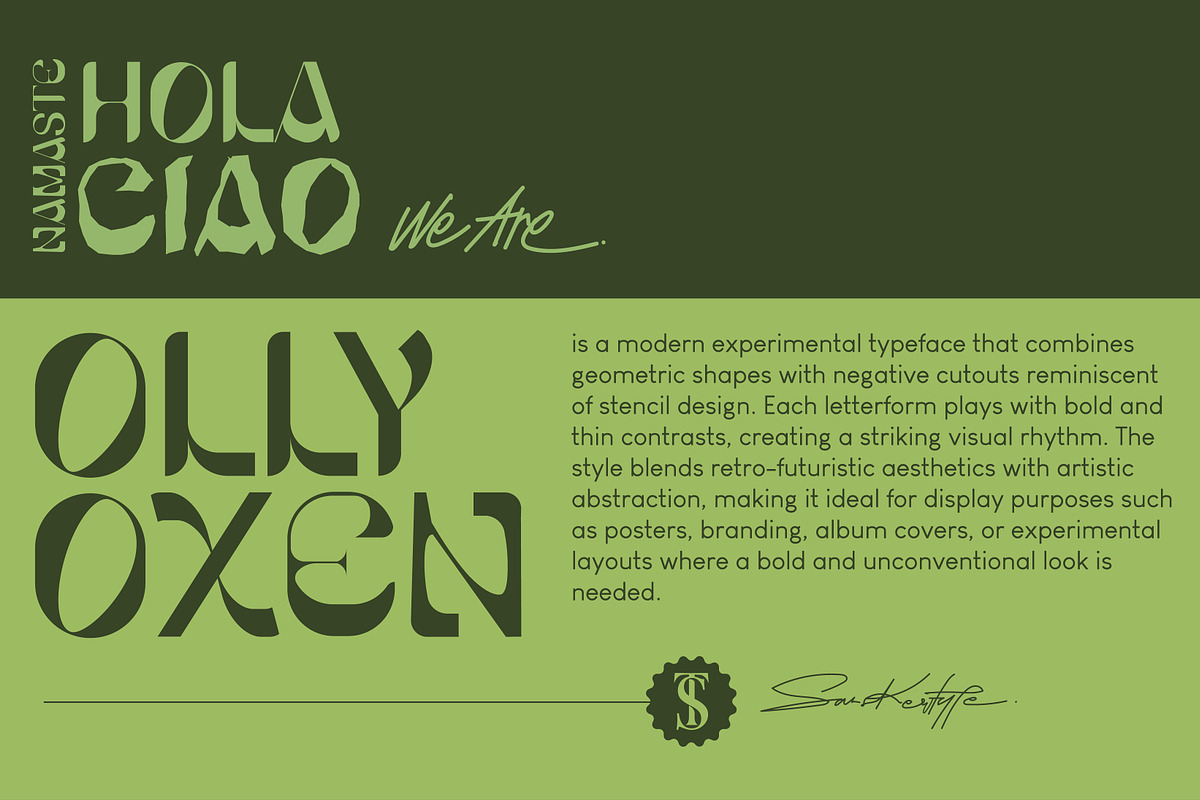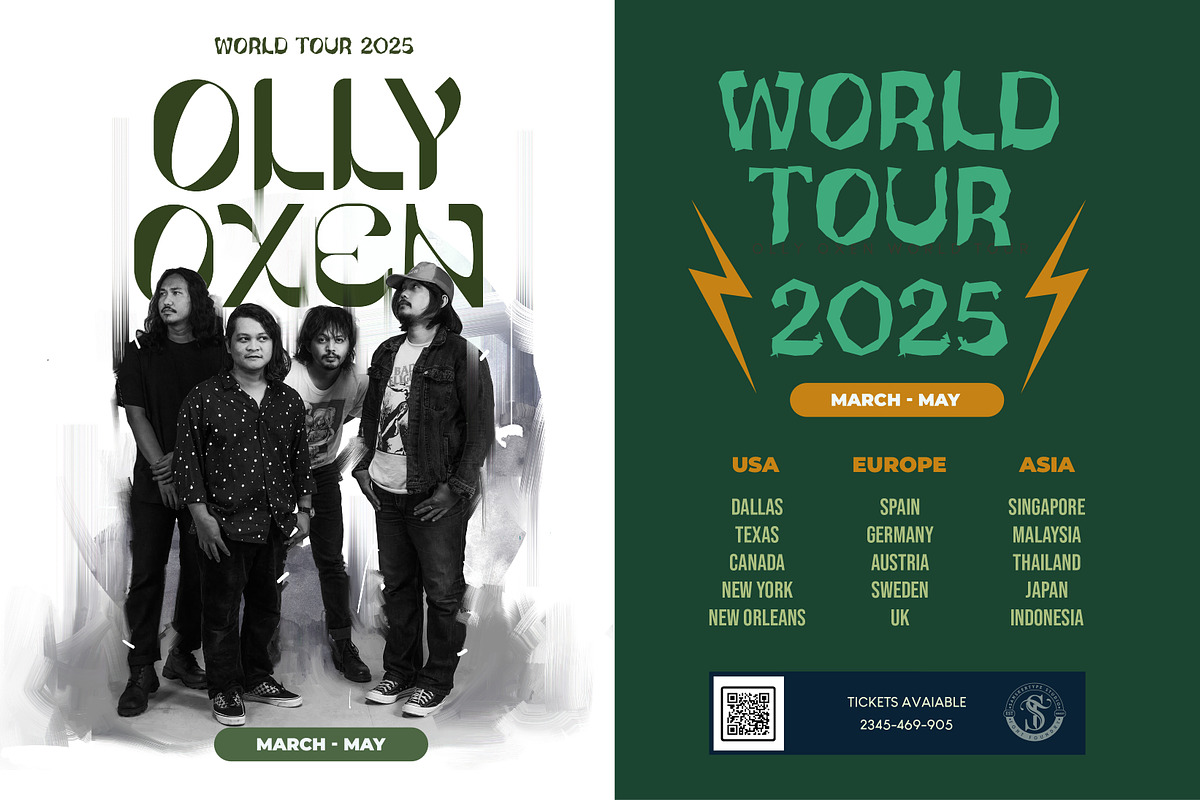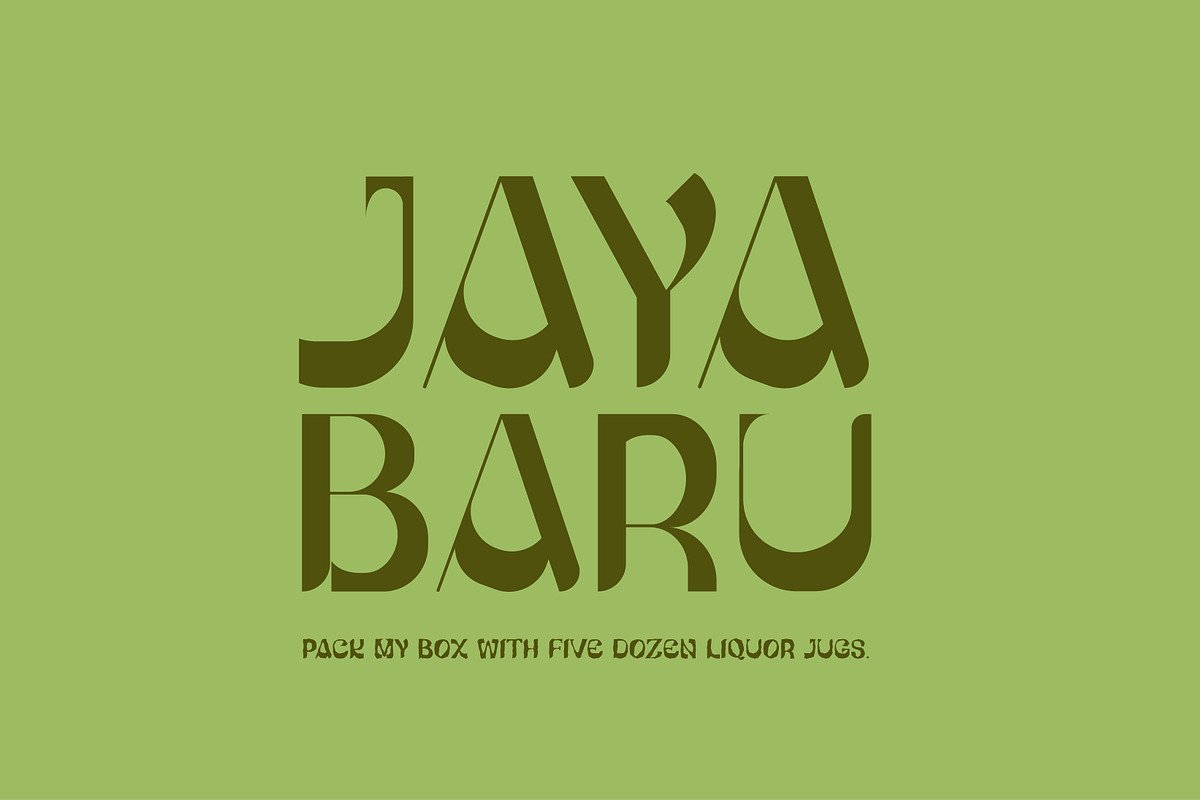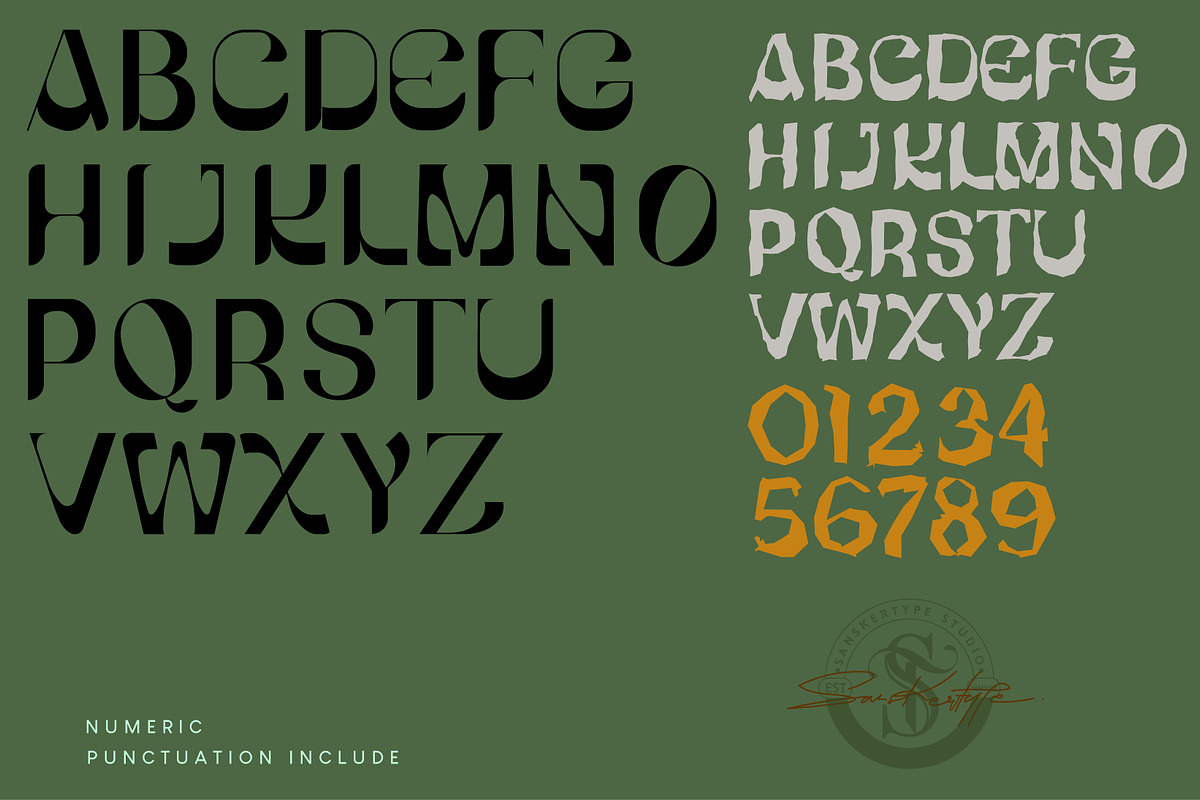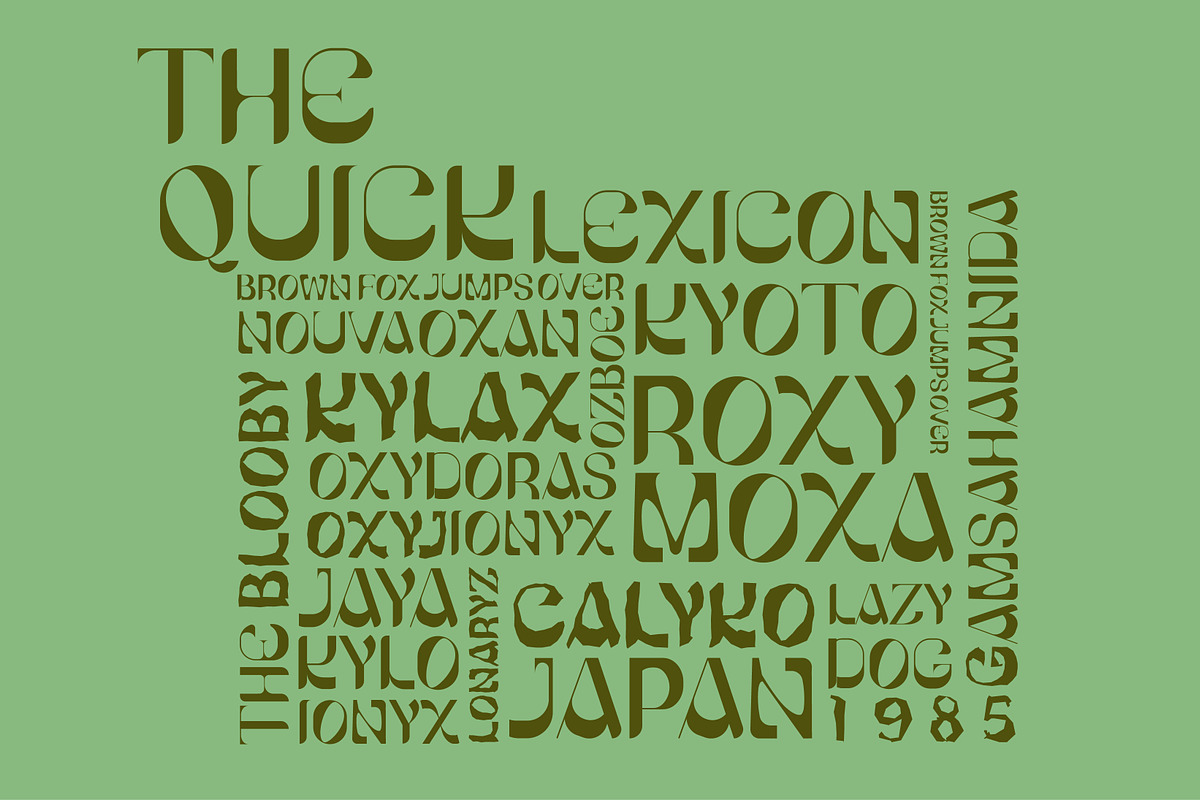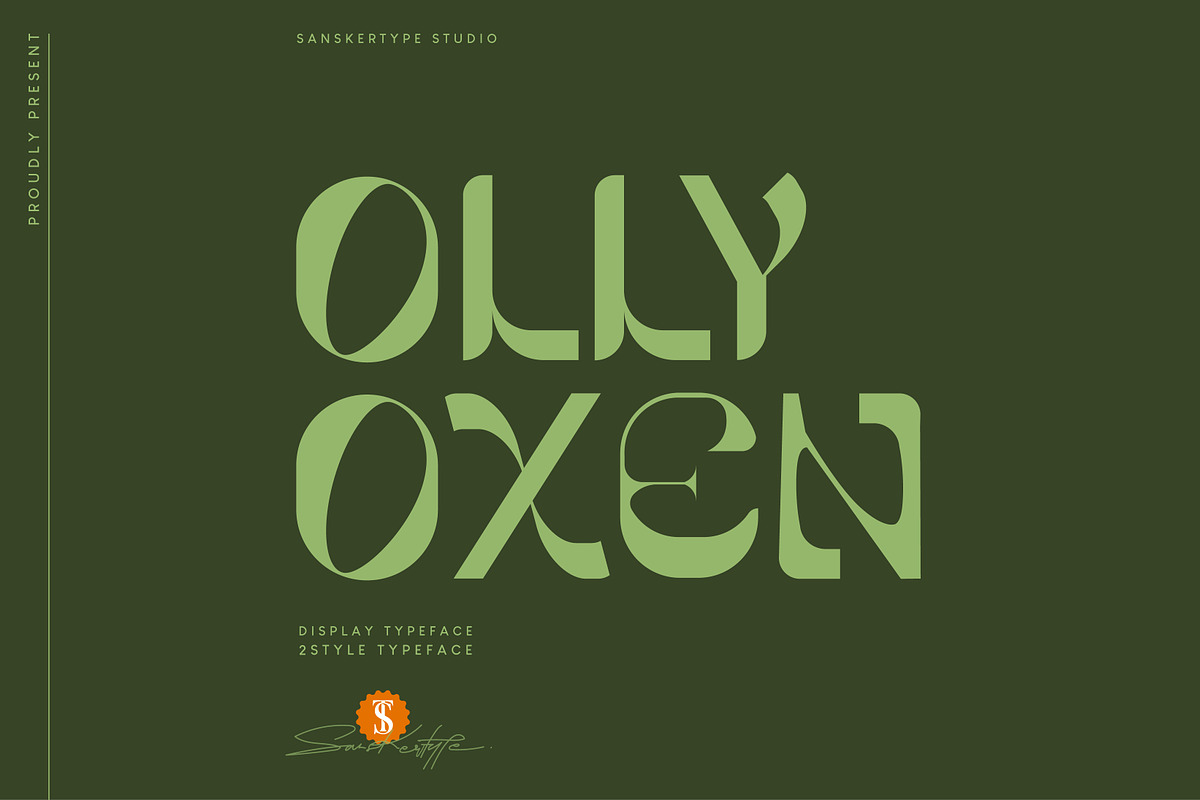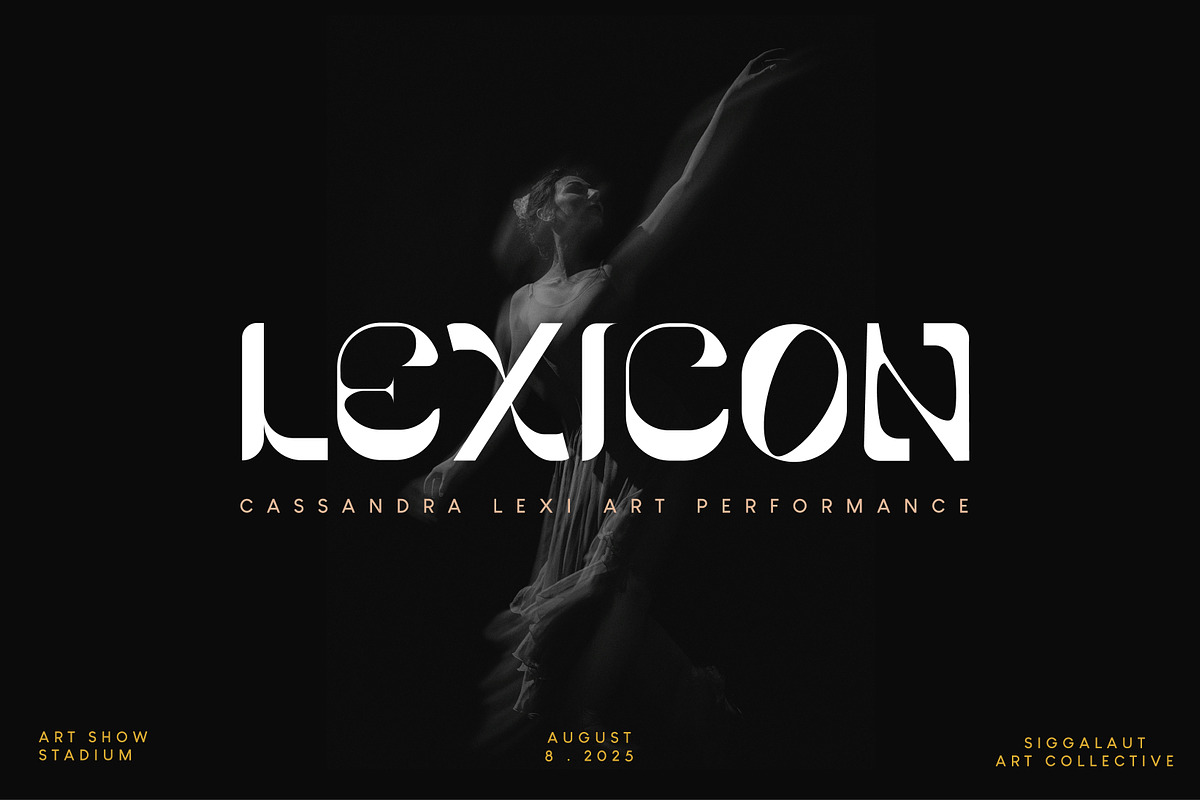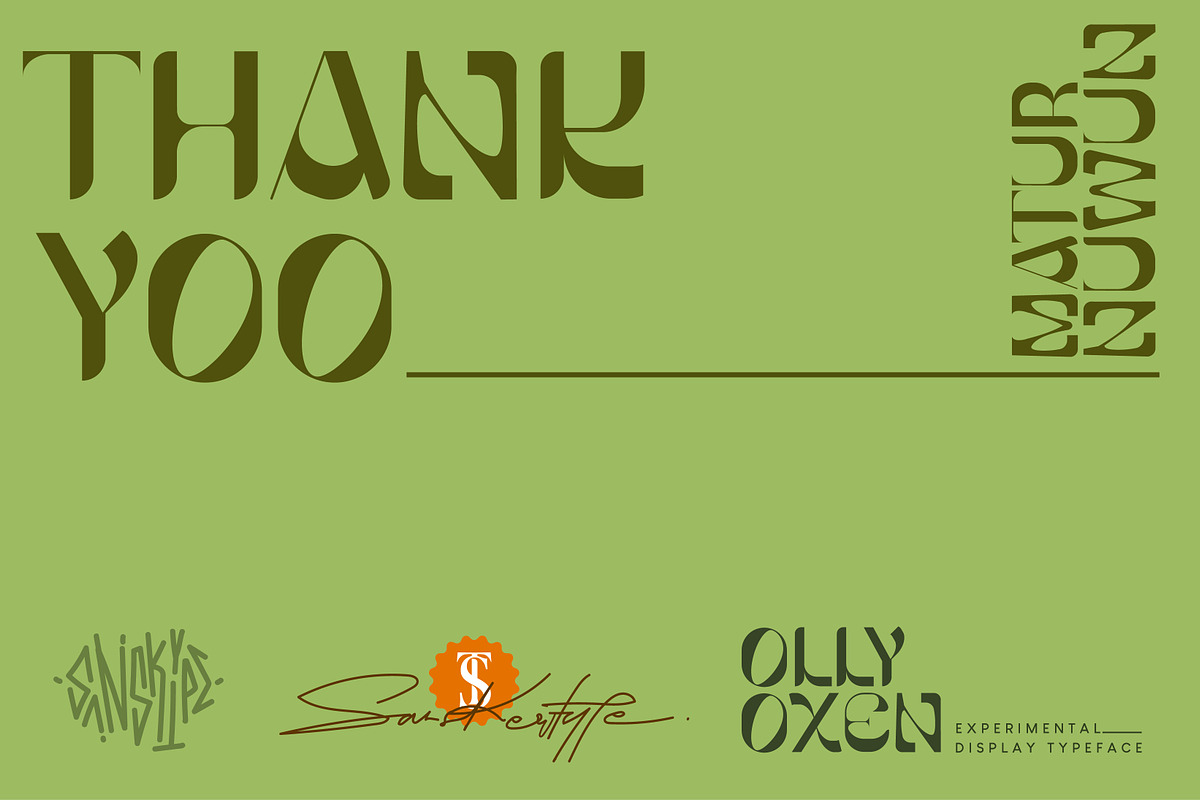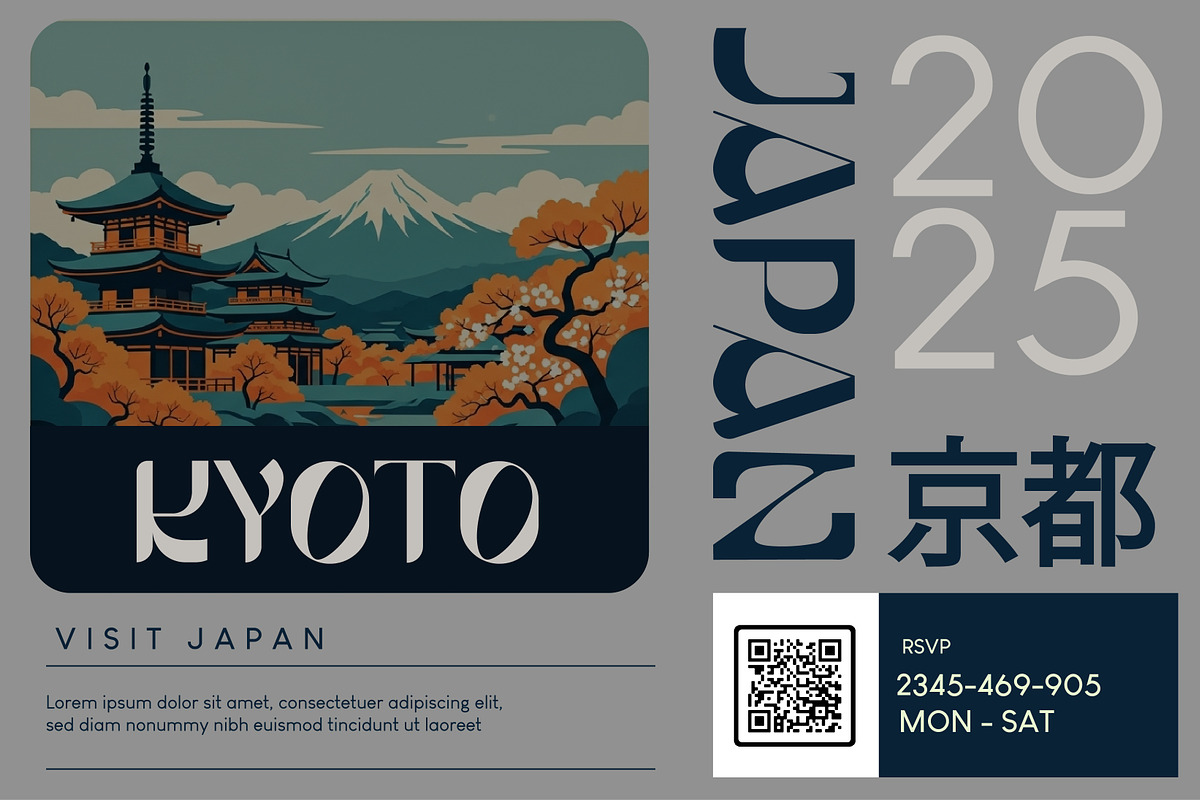
Olly Oxen - Modern Sans Typeface
Olly Oxen is a modern sans display typeface with a bold and artistic geometric style. Its clean cuts and unique letterforms make it stand out for branding, posters, headlines, packaging, and creative projects. With 2 style variations, Olly Oxen Typeface offers versatility for both modern and experimental designs. Perfect for designers looking for a strong and contemporary display font to elevate their visual identity.
- Uppercase & Lowercase Letters
- Logo & Branding
- Poster & Headline
- Packaging Design
- Fashion Editorials
- Album & Cover Art
- Advertising & Marketing
- Modern Web & Digital Projects
- Creative Typography Experiments